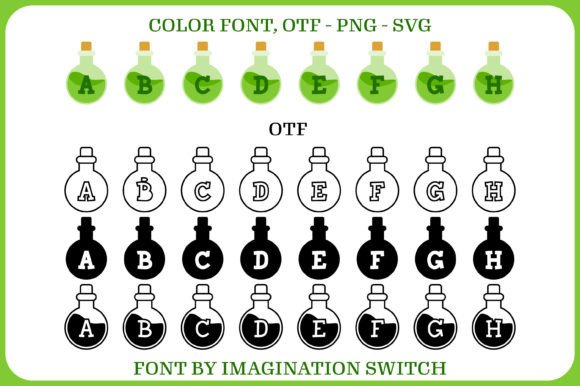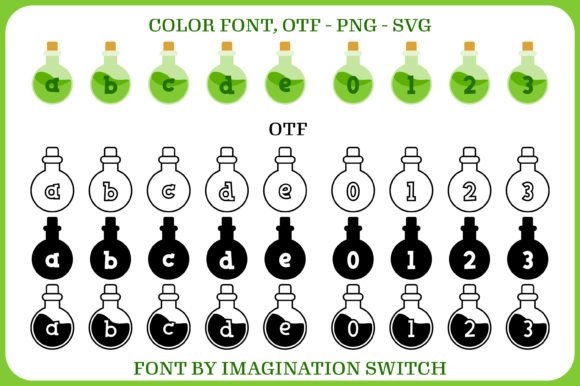
Discover the Enchanting World of Green Potion Font
In the realm of typography, a new gem has emerged to captivate designers and crafters alike – the Green Potion Font. This enchanting typographic creation has been meticulously designed to mesmerize with its intriguing color palette, elevating its visual appeal to new heights. With a comprehensive set of characters, including uppercase, lowercase, and numbers, Green Potion Font offers unparalleled flexibility, making it an ideal choice for a wide range of projects.
Aesthetics and Versatility
Green Potion Font boasts a unique and captivating aesthetic that is sure to leave a lasting impression. Its intriguing color scheme adds a touch of magic to any design, making it perfect for projects that require a dash of whimsy and creativity. The font’s versatility knows no bounds, as it can be seamlessly integrated into various types of projects, including:
- Print designs: From brochures to business cards, Green Potion Font is an excellent choice for any print material.
- Web designs: Add a touch of elegance and sophistication to your website with this enchanting font.
- Promotional materials: Make your promotional materials stand out with Green Potion Font’s captivating visual appeal.
- And more: The font’s flexibility ensures that it can be used for a wide range of projects, from packaging to signage.
Design Features and Benefits
Green Potion Font has been carefully crafted to provide designers and crafters with a comprehensive set of characters, including:
- Uppercase letters: Perfect for headings and titles.
- Lowercase letters: Ideal for body text and descriptions.
- Numbers: Ensure that your designs are complete with a set of beautifully crafted numbers.
The font’s design features and benefits include:
- Excellent legibility: Green Potion Font is designed to be easy to read, ensuring that your message is conveyed clearly.
- Visually appealing presentation: The font’s captivating color scheme and elegant design make it perfect for enhancing the visualization of your message.
Why Choose Green Potion Font?
With so many fonts available, why choose Green Potion Font? Here are just a few reasons why designers and crafters are falling in love with this enchanting typographic creation:
- Unique aesthetic: Green Potion Font’s captivating color scheme and elegant design make it a standout in the world of typography.
- Flexibility: The font’s comprehensive set of characters and versatility make it perfect for a wide range of projects.
- Easy to use: Green Potion Font is designed to be easy to read and use, ensuring that your designs are completed quickly and efficiently.
Tips and Tricks for Using Green Potion Font
To get the most out of Green Potion Font, here are a few tips and tricks to keep in mind:
- Experiment with colors: While the font’s color scheme is captivating, don’t be afraid to experiment with different colors to create a unique look.
- Pair with complementary fonts: Green Potion Font pairs beautifully with a range of fonts – experiment with different combinations to find the perfect match.
- Use for headlines and titles: The font’s elegant design and captivating color scheme make it perfect for headlines and titles.
In conclusion, Green Potion Font is a captivating typographic creation that is sure to enchant designers and crafters alike. With its comprehensive set of characters, intriguing color palette, and versatility, this font is perfect for a wide range of projects. Whether you’re working on a print design, web design, or promotional materials, Green Potion Font is an excellent choice. So why not give it a try and discover the magic of Green Potion Font for yourself?